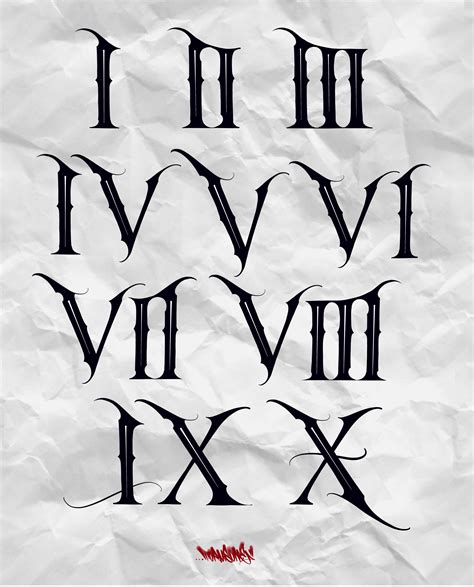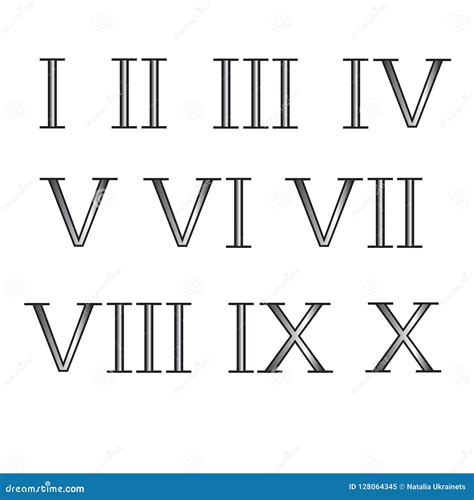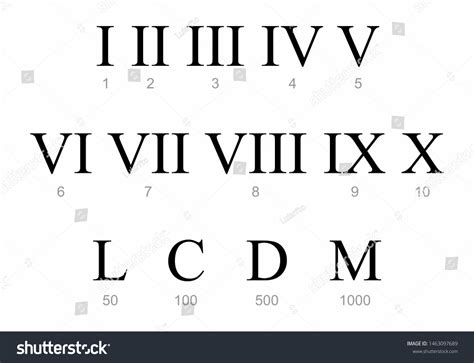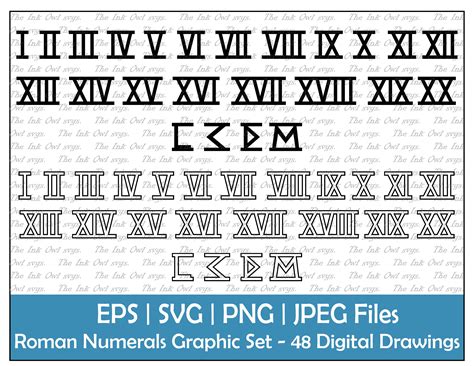
Roman numerals have been a part of human history for centuries, serving as a foundational system for counting and recording dates. Today, the Roman Numerals Font continues to captivate designers, historians, and enthusiasts alike. This font style, with its unique and timeless appeal, is often used in various contexts, from movie credits and book titles to clocks and monuments. Understanding the intricacies of Roman numerals and their font can provide a deeper appreciation for this enduring symbolism.
Understanding Roman Numerals
Roman numerals are a numeral system that originated in ancient Rome. They are based on seven symbols: I, V, X, L, C, D, and M, which represent the numbers 1, 5, 10, 50, 100, 500, and 1,000, respectively. The system uses a combination of these symbols to represent larger numbers. For example, IV represents 4, IX represents 9, and XL represents 40.
One of the key features of Roman numerals is their additive and subtractive nature. Numbers are formed by adding or subtracting the values of the symbols. For instance, the number 19 is represented as XIX (10 + 9), and the number 49 is represented as XLIX (50 - 10 + 9). This system, while not as efficient as the decimal system we use today, has a certain elegance and historical significance that makes it enduringly popular.
The Evolution of Roman Numerals Font
The Roman Numerals Font has evolved over time, reflecting changes in typography and design trends. In ancient times, Roman numerals were often inscribed in stone or metal, with a focus on durability and legibility. As printing technology advanced, the font styles became more refined, incorporating elements of calligraphy and artistry.
Today, the Roman Numerals Font is available in a variety of styles, from classic and traditional to modern and sleek. Designers often choose a Roman Numerals Font to evoke a sense of history, elegance, and timelessness. Whether used in digital media, print design, or architectural elements, the font continues to be a versatile and powerful tool for communication.
Applications of Roman Numerals Font
The Roman Numerals Font finds applications in a wide range of fields, each leveraging its unique aesthetic and historical significance. Some of the most common applications include:
- Movie Credits: Many films use Roman numerals in their opening and closing credits to create a sense of grandeur and tradition.
- Book Titles: Publishers often use Roman numerals in book titles and chapter headings to add a touch of sophistication.
- Clocks and Watches: Roman numerals are a popular choice for clock faces, adding a classic and elegant look.
- Monuments and Architecture: Many historical monuments and buildings feature Roman numerals, often inscribed in stone or metal.
- Branding and Logos: Companies use Roman numerals in their branding to convey a sense of heritage and timelessness.
Each of these applications highlights the versatility and enduring appeal of the Roman Numerals Font.
Designing with Roman Numerals Font
When designing with a Roman Numerals Font, there are several key considerations to keep in mind. These include:
- Legibility: Ensure that the font is easy to read, especially in smaller sizes. Some Roman numeral fonts can be more challenging to decipher, so choose a style that balances aesthetics with readability.
- Context: Consider the context in which the font will be used. For example, a classic Roman numeral font might be more appropriate for a historical document, while a modern style could work better for a contemporary design.
- Consistency: Maintain consistency in the use of Roman numerals throughout your design. This includes ensuring that the same font style is used for all numerals and that the spacing and alignment are uniform.
- Contrast: Use contrast to make the Roman numerals stand out. This can be achieved through color, size, or placement. For example, a larger font size or a contrasting color can help draw attention to important numerals.
By keeping these considerations in mind, designers can effectively incorporate a Roman Numerals Font into their projects, enhancing both the visual appeal and the historical significance of their work.
Common Roman Numerals and Their Meanings
Here is a table of common Roman numerals and their corresponding values:
| Roman Numeral | Value |
|---|---|
| I | 1 |
| V | 5 |
| X | 10 |
| L | 50 |
| C | 100 |
| D | 500 |
| M | 1,000 |
Understanding these basic symbols and their values is essential for working with Roman numerals and the Roman Numerals Font.
📝 Note: Roman numerals do not have a symbol for zero, which is an important distinction from the decimal system.
Creating Custom Roman Numerals Font
For designers who want to create a custom Roman Numerals Font, there are several steps to follow. These include:
- Choose a Base Font: Start with a base font that has a classic or elegant style. This will serve as the foundation for your custom font.
- Design the Numerals: Use design software to create the individual Roman numerals. Pay attention to the proportions and spacing to ensure consistency.
- Test for Legibility: Test the font in various sizes and contexts to ensure it is legible. Make adjustments as needed to improve readability.
- Export the Font: Once you are satisfied with the design, export the font in a format that can be used in your design projects. Common formats include TrueType (TTF) and OpenType (OTF).
Creating a custom Roman Numerals Font allows designers to tailor the font to their specific needs, ensuring a unique and personalized touch to their projects.
📝 Note: When creating a custom font, it is important to consider the licensing and usage rights to avoid any legal issues.
Historical Significance of Roman Numerals
The historical significance of Roman numerals cannot be overstated. They have been used for centuries to record dates, mark important events, and convey a sense of tradition and heritage. From the ancient Roman Empire to modern-day applications, Roman numerals have remained a symbol of enduring importance.
In ancient Rome, numerals were used in various aspects of daily life, from commerce and trade to architecture and engineering. The system's simplicity and durability made it well-suited for inscriptions on stone and metal, ensuring that important records and monuments would last for generations.
Today, Roman numerals continue to be used in a variety of contexts, from academic and historical texts to contemporary design and branding. Their timeless appeal and historical significance make them a valuable tool for communication and expression.
One of the most notable examples of Roman numerals in modern times is their use in the numbering of Super Bowl games. Each year, the Super Bowl is designated with a Roman numeral, adding a sense of tradition and continuity to the event. This practice has become an iconic part of American sports culture, highlighting the enduring relevance of Roman numerals.
Another example is the use of Roman numerals in the numbering of monarchs and popes. For instance, Queen Elizabeth II is often referred to as Elizabeth II, and Pope Francis is the 266th pope. This system helps to distinguish between different rulers and leaders with the same name, providing a clear and concise way to identify them.
In conclusion, the Roman Numerals Font is a versatile and timeless tool that continues to captivate designers, historians, and enthusiasts alike. Its unique aesthetic and historical significance make it a valuable addition to any design project, whether used in digital media, print design, or architectural elements. By understanding the intricacies of Roman numerals and their font, designers can create visually appealing and historically significant works that stand the test of time.